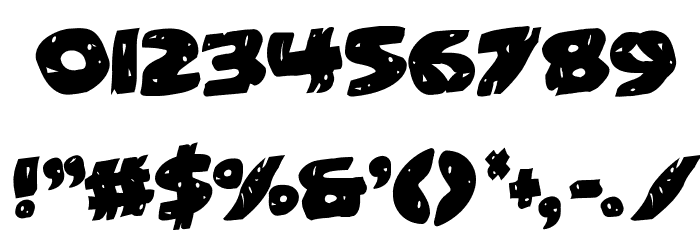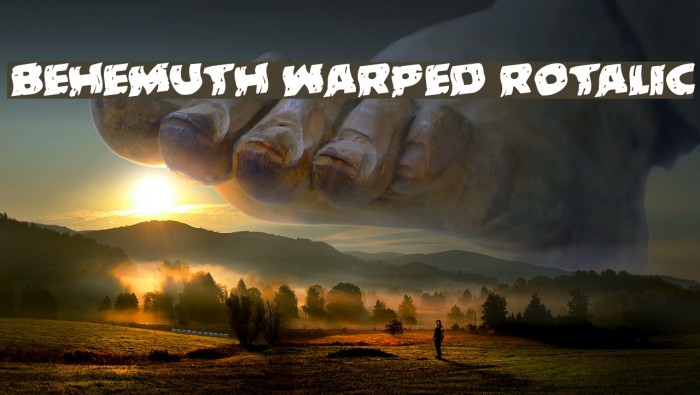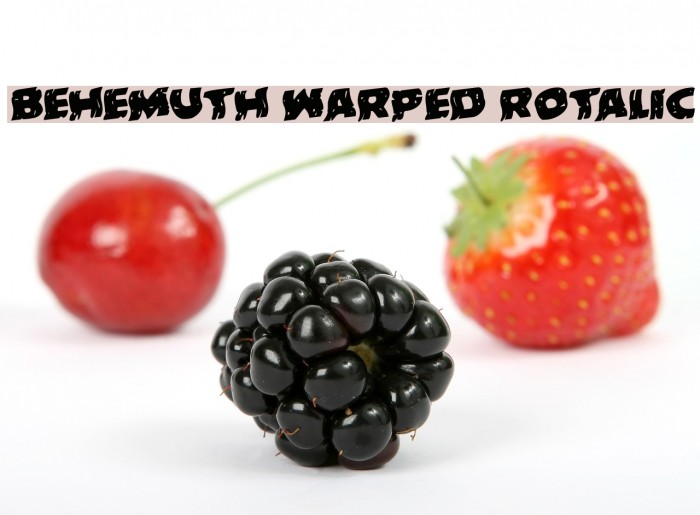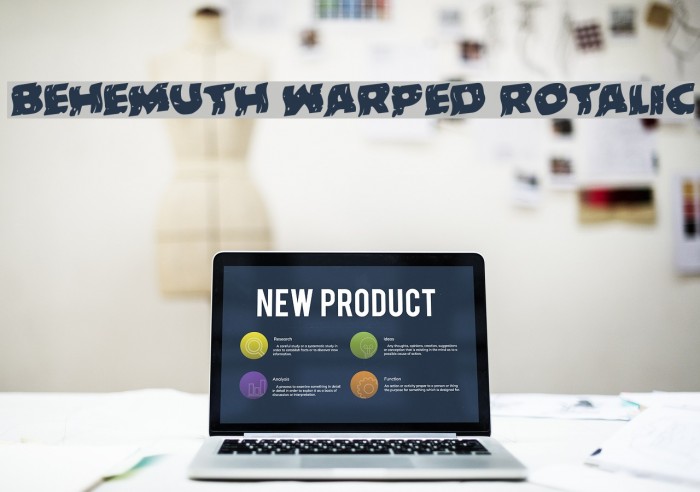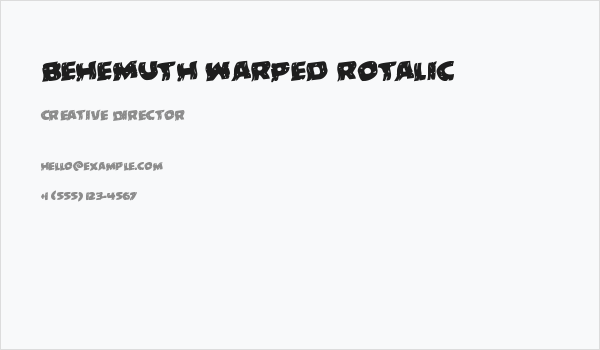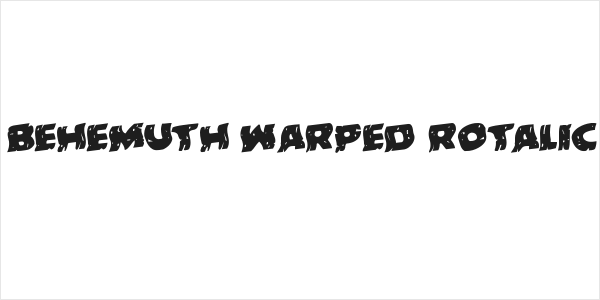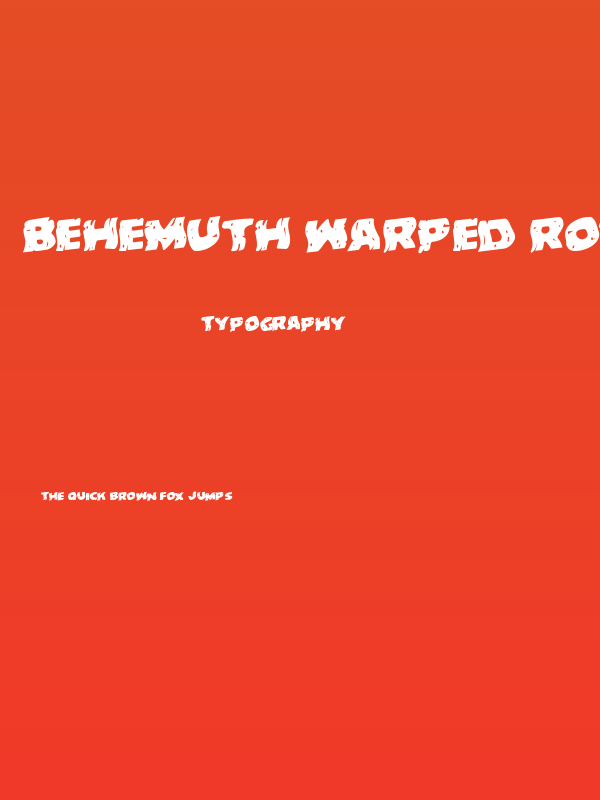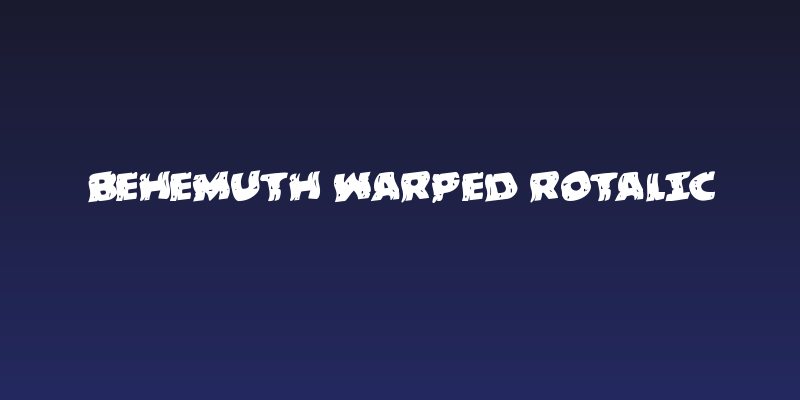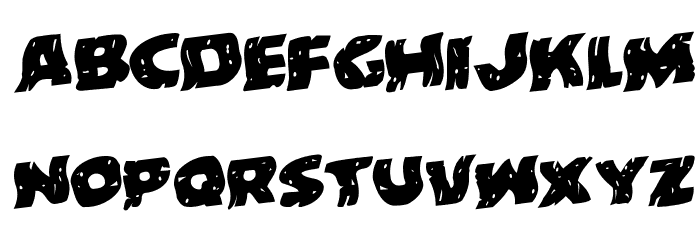
Behemuth Warped Rotalic Font
Behemuth Warped Rotalic Description
This font exhibits a bold and dynamic style with a warped, distorted appearance that gives it a unique, eye-catching look. The characters are heavily stylized, featuring irregular shapes and varying thicknesses, which contribute to its playful and chaotic aesthetic. The uppercase and lowercase letters maintain a consistent design theme, while the numbers and special characters integrate seamlessly with the overall style. This font's distinctive appearance makes it ideal for projects that require a strong visual impact.
Overall StyleModern, Decorative
Proposed ProjectsIdeal for posters, album covers, video game graphics, and any project needing a bold, eye-catching design.